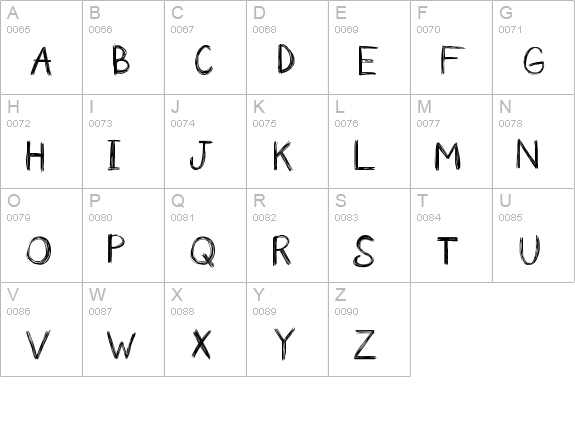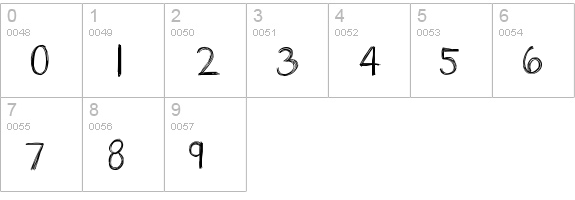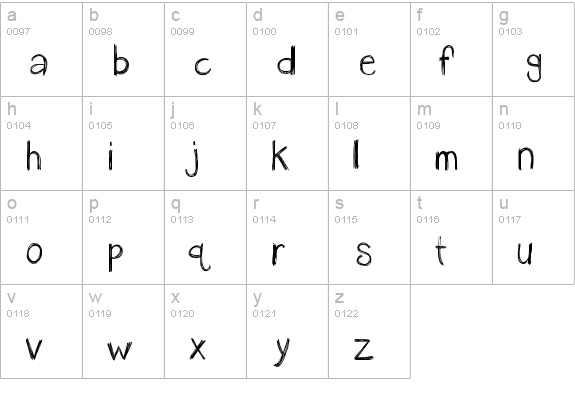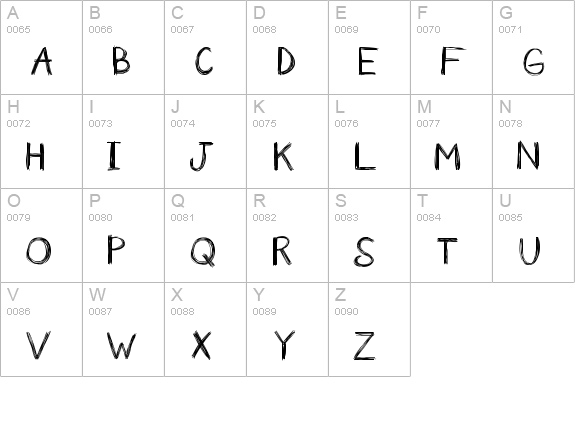
KBanAvoxlost Font Details
Introducing KBanAvoxlost, a captivating and versatile font that is bound to captivate your audience with its unique and eye-catching design. This font effortlessly combines elegance with a touch of playfulness, making it perfect for a wide range of creative projects. KBanAvoxlost is a free font that is readily available for download at FontsMarket.com. Its availability at no cost makes it an ideal choice for designers, artists, and enthusiasts who are looking to enhance their creations without breaking the bank. Whether you're working on a professional project or simply indulging in your creative passion, this font offers endless possibilities. With its carefully crafted letterforms and exquisite attention to detail, KBanAvoxlost effortlessly adds a touch of sophistication and charm to any design. Its graceful curves and stylish lines create a sense of elegance, while its playful quirks inject a sense of personality and uniqueness. This font is perfect for a variety of design applications, including logos, branding, invitations, posters, social media graphics, and more. Its versatility ensures that it can adapt to any project, allowing you to unleash your creativity and bring your ideas to life. KBanAvoxlost is not just a font; it's a tool that empowers you to express yourself and make a lasting impression. Its free availability at FontsMarket.com allows you to download and explore this font without any constraints, giving you the freedom to experiment and create without limitations. So, what are you waiting for? Download KBanAvoxlost today from FontsMarket.com and embark on a journey of creativity and self-expression. Let this font be your trusted companion as you embark on your design endeavors, and watch as your creations come to life with style, elegance, and a touch of whimsy.